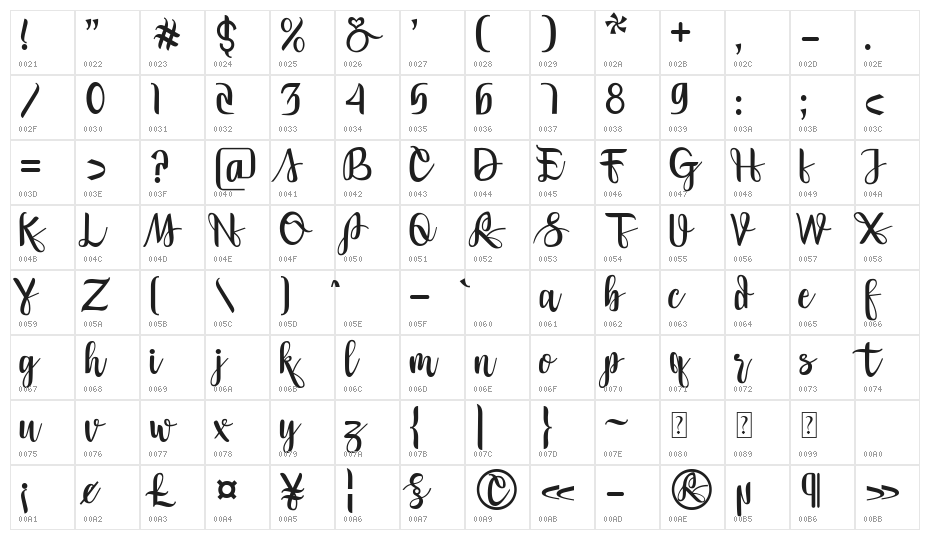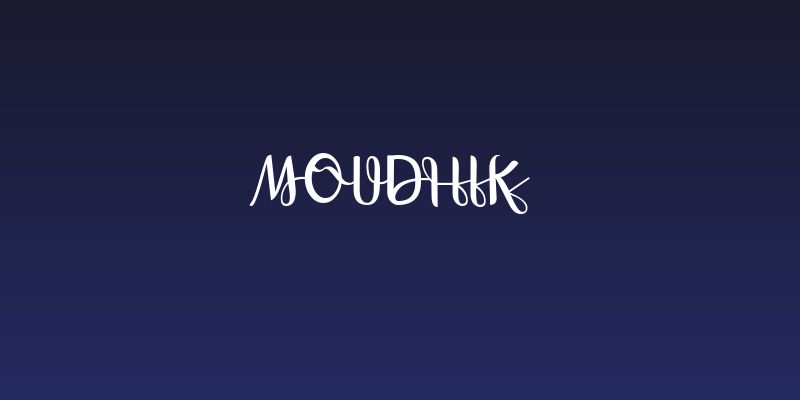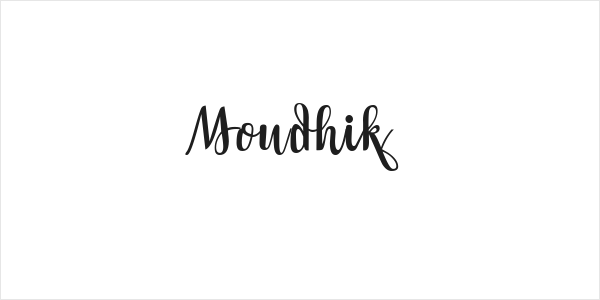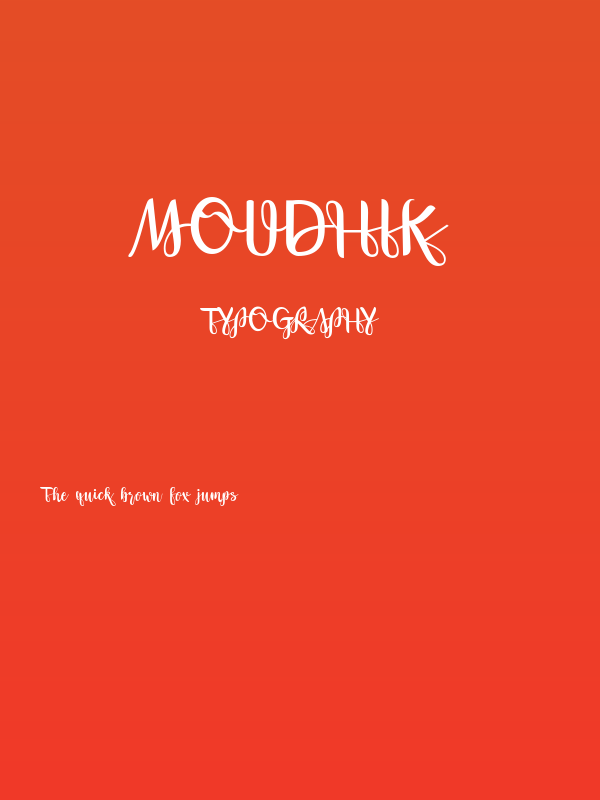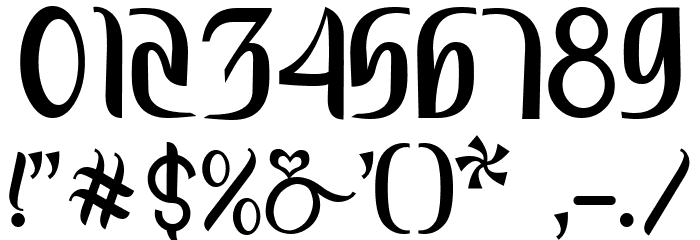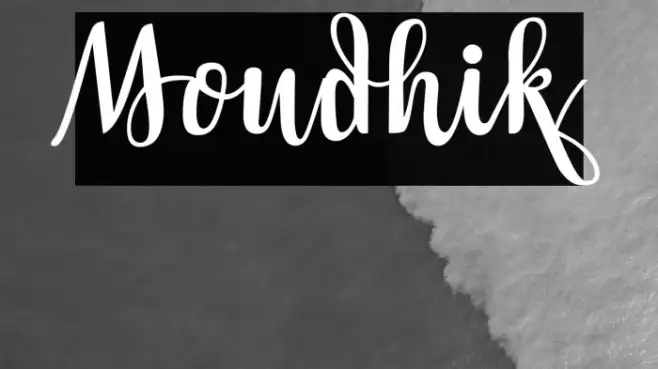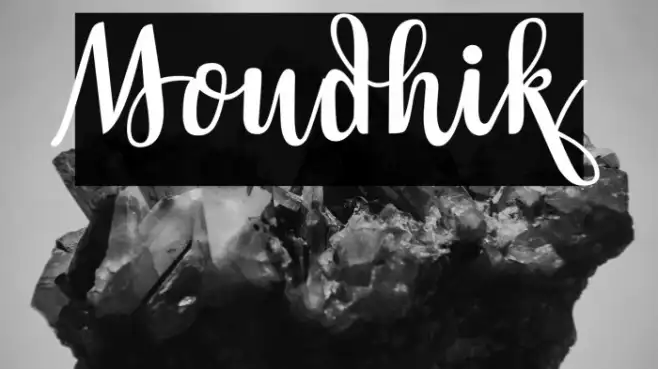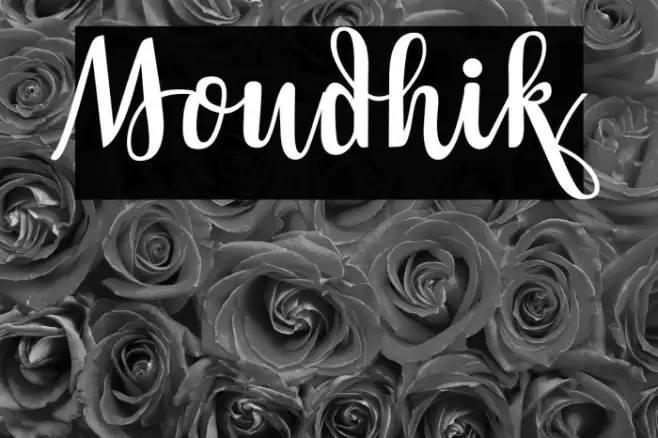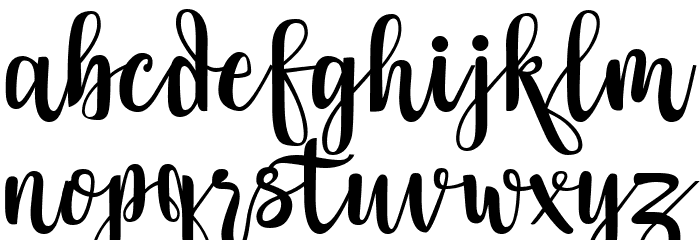
Moudhik Font
Moudhik Description
This font features a playful and elegant script style with a modern twist. The uppercase letters are characterized by their flowing, interconnected strokes, creating a sense of movement and fluidity. The lowercase letters maintain this fluidity with a slightly more compact form, offering a harmonious balance between each character. The numerals are bold and distinct, with a slight slant that complements the overall script style. Special characters are uniquely designed, maintaining the playful and elegant aesthetic. The font's high contrast in stroke thickness adds to its dynamic appearance, making it stand out in various applications.
| Proposed Projects | Ideal for wedding invitations, greeting cards, branding projects, and elegant logo designs. |